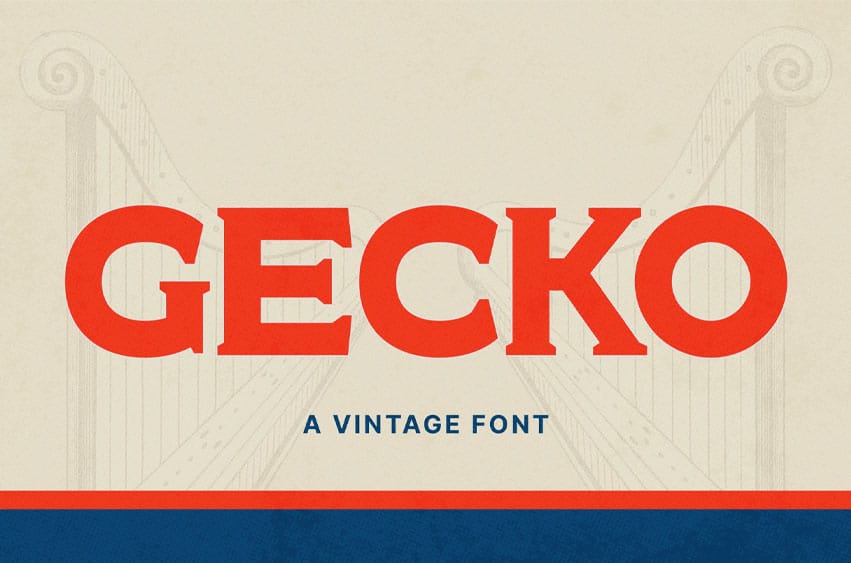
Gecko Font is a vintage serif font that perfectly blends classic style with a modern touch. With its soft curves and balanced weight, this font creates an elegant, clean, and charming impression. Inspired by the retro typography of the 70s, Gecko is the ideal choice for design projects that need a warm, nostalgic feel.
Gecko is designed with a full set of features to support your creativity:
- Uppercase & Lowercase: Complete sets of capital and small letters.
- Numbers & Punctuation: All numbers (0-9) and basic punctuation marks are available for complete typography.
- Alternates & Ligatures: Add visual variety with special alternate characters and ligatures designed to enhance the beauty of your text.
- Multilingual Support: Gecko supports various Latin-based languages, ensuring global usability.